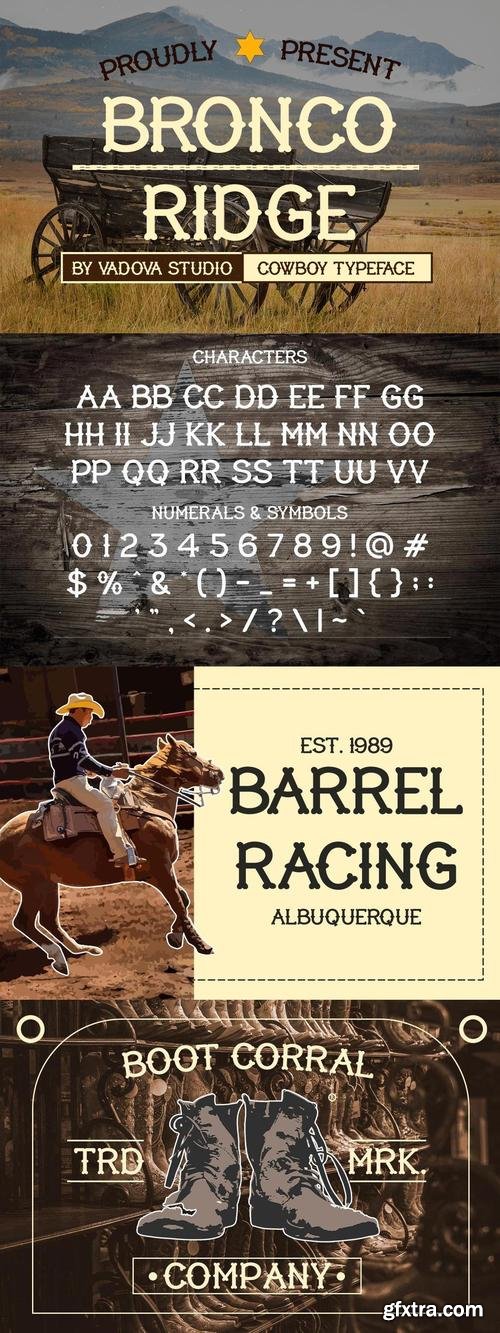
Elevate your designs with Bronco Ridge Cowboy Font, a font perfect for adding elegance and style to your projects. Whether it’s for quotes, logotypes, magazine headers, or more, this versatile typeface ensures your text stands out beautifully.
- Uppercase & Lowercase characters
- Numeral & Punctuations